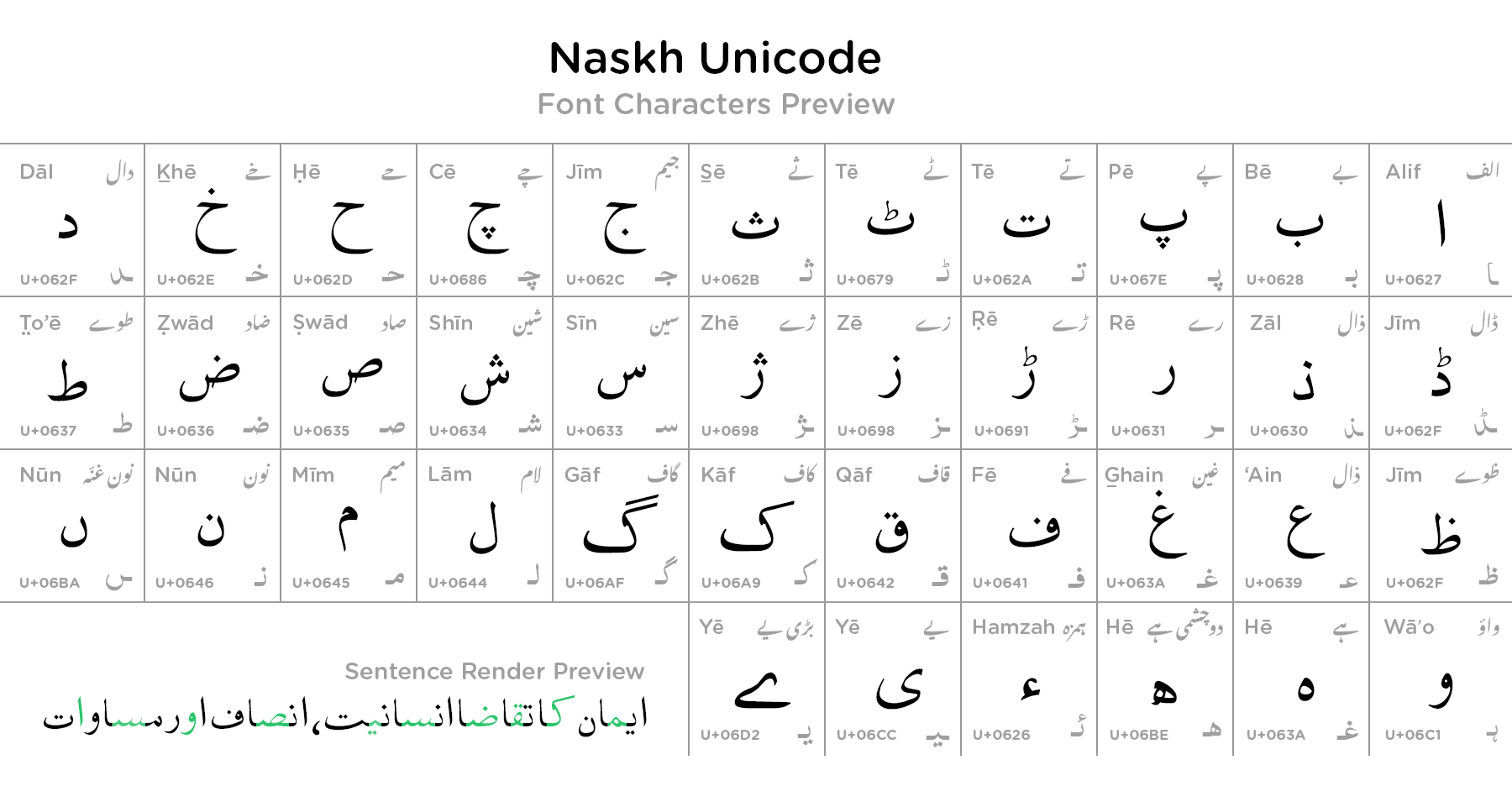
Naskh Unicode is a regular Arabic font crafted by Syed Manzar Hasan Zaidi and released by Axis Softmedia Pvt. Ltd designed for simplicity and clarity. Inspired by the traditional Naskh script, it was released on October 10, 2017, with 444 characters and 497 glyphs. Known for its simple and clear letterforms, Naskh Unicode prioritizes readability and legibility, making it ideal for everyday use. Compatible with languages like Urdu, Arabic, Latin, and Persian, it covers various Unicode blocks, including Basic Latin, Arabic, and more.
The font features a single font-weight (regular) and maintains high legibility on screens, making it suitable for longer text blocks. Its thickness varies throughout the letterforms, being thin towards terminals and conjunction points. The edges are blunt, and the corners are soft and rounded, contributing to its elegant appearance. The delicate strokes and modern look of this font make it perfect for branding, advertising, logos, posters, games, T-shirts, book covers, and document formatting. Its monospaced letters and moderate thickness enhance its readability, ensuring a pleasant reading experience across different applications.